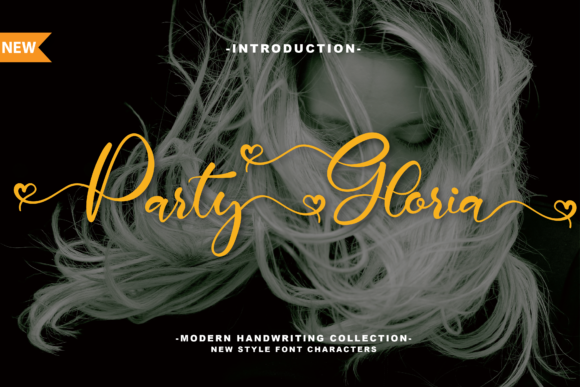
Welcome to the world of Party Gloria Script Font, where your creativity meets elegance! Immerse yourself in a font journey that promises to set your designs apart with a unique handwriting style.
With Party Gloria, the possibilities are endless. It's a versatile script font that captivates attention with its flowing curves and lively strokes, making it perfect for various projects, including wedding invitations, thank-you cards, quotes, greeting cards, logos, business cards, and more.
Whether you're crafting handmade letters, personalizing gifts, or designing branding materials, Party Gloria gracefully adds a touch of sophistication to any concept. Unleash your creative flair and transform your designs into pieces of art with this enchanting font.
From personal correspondence to professional projects, Party Gloria elevates your words, effortlessly conveying emotions and messages with its elegant lines. Let this script font be your creative partner, helping you craft designs that resonate with your audience and leave a lasting impression.
Indulge in the beauty of Party Gloria's feminine charm and bring a hint of enchantment to your work. As you explore its potential, you'll discover a world of design possibilities waiting to be uncovered. Allow your creations to shine with the exquisite allure of Party Gloria Script Font.